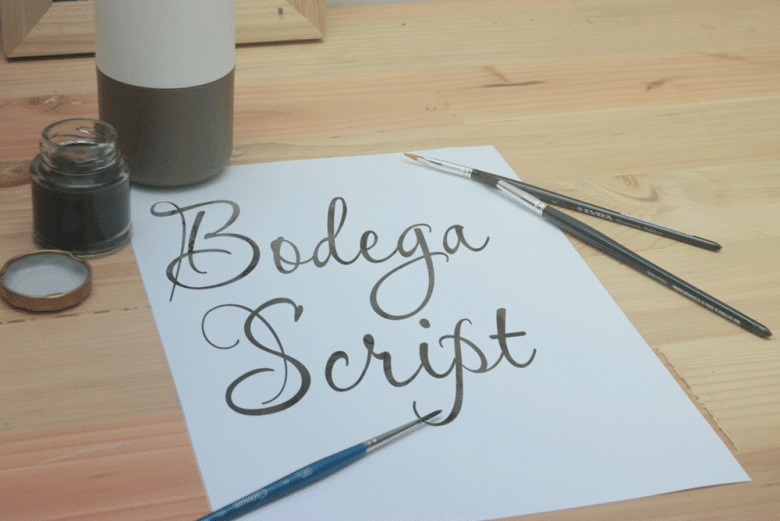
Bodega Script Font
Introducing the new handwritten stylish fonts Bodega Script, perfect for creating authentic hand-lettered text with a dancing baseline, classic and elegant touch.
Bodega Script can be used for various purposes. such as headings, signature, logos, wedding invitation, t-shirt, letterhead, signage, product packaging, lable, news, posters, handwritten quotes & etc.